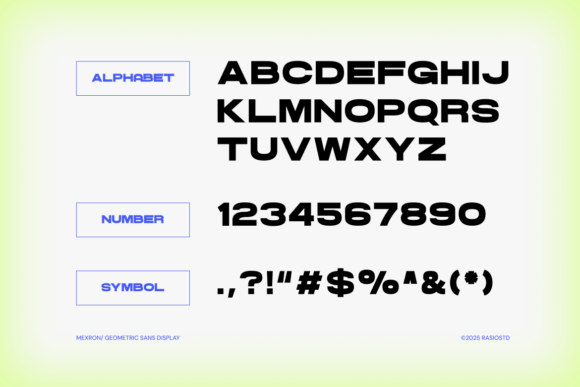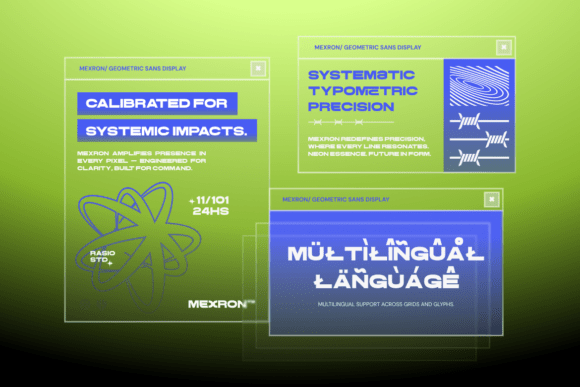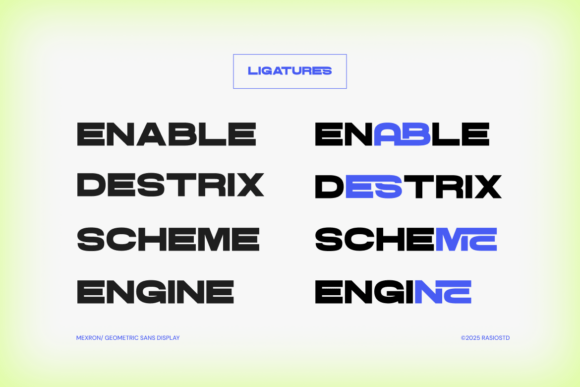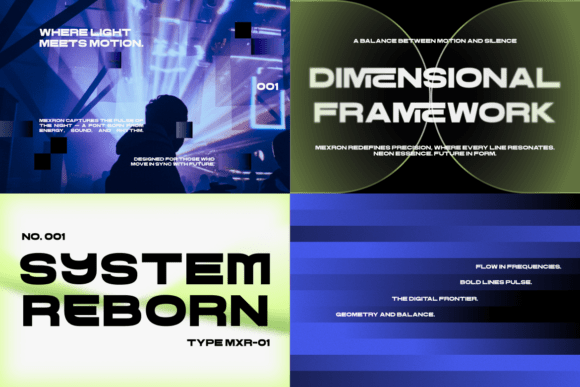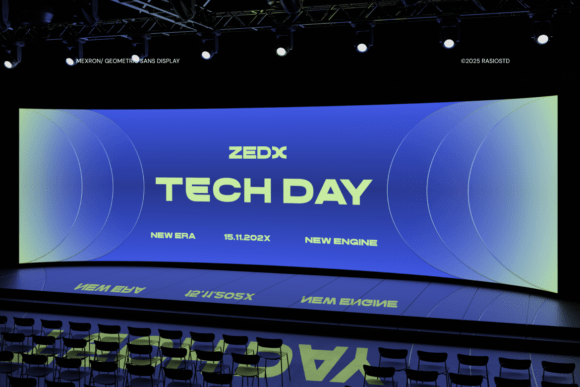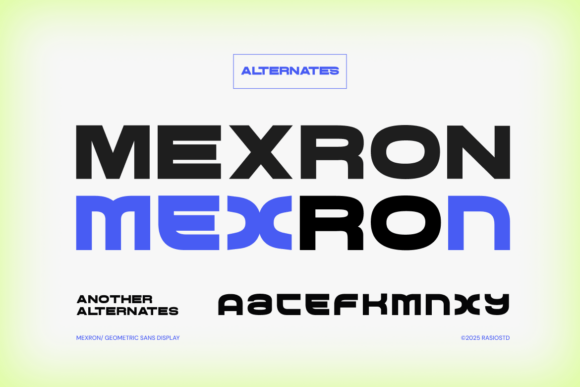
Unlocking the Potential of Mexron Font
Have you ever stared at a blank canvas, waiting for inspiration to strike? For designers, that moment of creative spark can be the difference between a mediocre project and a masterpiece. As you embark on your next creative journey, consider the power of typography in shaping your brand’s identity. One typeface that can elevate your design to new heights is the Mexron Font – a cutting-edge display font engineered for precision, clarity, and bold visual impact.
With its systematic structure and sharp modular construction, the Mexron Font is a game-changer for designers seeking a high-quality design resource that exudes modern digital aesthetics. Whether you’re working on a futuristic poster, a software interface, or an experimental visual system, this font is sure to make a statement. Download the Mexron Font and unlock its full potential to transform your creative project into a work of art.
Key Features of Mexron Font
- High-quality design resource for creative projects, ideal for graphic designers and artists.
- Transparent background option allows for seamless integration into designs with complex backgrounds.
- Unique, stylish design with a modern aesthetic, perfect for adding a touch of sophistication to any creative project.
Honest Review: Mexron Font
I recently stumbled upon the Mexron Font and I must say it’s been a great addition to my design resources. The font offers a high quality and unique look that can add a creative touch to any project.
Here are some things that work well about the Mexron Font: ✨
- Transparent background: The font has a transparent background, which makes it easy to use in various design scenarios.
- High quality: The font is well-designed and looks great at various font sizes and resolutions.
However, there are some limitations to the Mexron Font: ⚠️
- Limited character set: The font only includes a limited character set, which may not be suitable for projects that require a wide range of characters.
- Not suitable for body text: While the font looks great for headings and titles, it may not be the best choice for body text due to its unique style.
Overall, I’m impressed with the Mexron Font and would recommend it as a design resource for creative projects. While it has some limitations, its unique look and high quality make it a valuable addition to any designer’s toolkit.
For getting the most out of Mexron Font, use it for headings and titles in your design project. This font is particularly useful for creative projects that require a clean and modern look. You can also use it for branding and marketing materials, such as logos, business cards, and brochures.